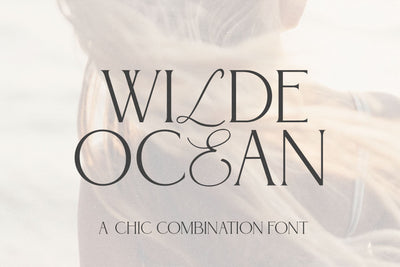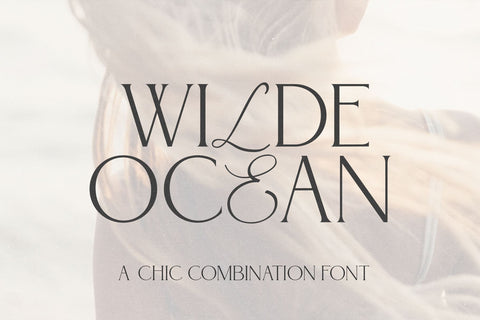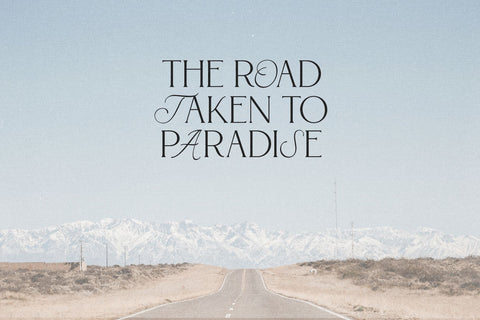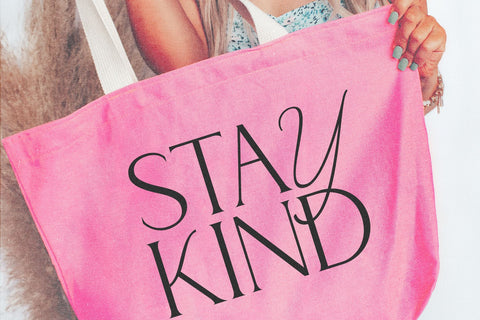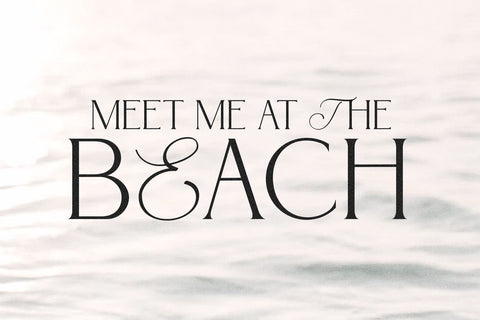
Wilde Ocean - Serif Calligraphy Font
Wilde Ocean is a modern serif paired perfectly with a stylish set of calligraphy letters.
This font includes capital letters for each style. Type with your caps lock on to access the serif or type with all lowercase letters to access the calligraphy letters. Mix and match upper and lowercase letters to create your perfect design!
Wilde Ocean is perfect for - editorial design, logos, branding, packaging, posters, magazines, social media, instagram quotes, headers, procreate and more!